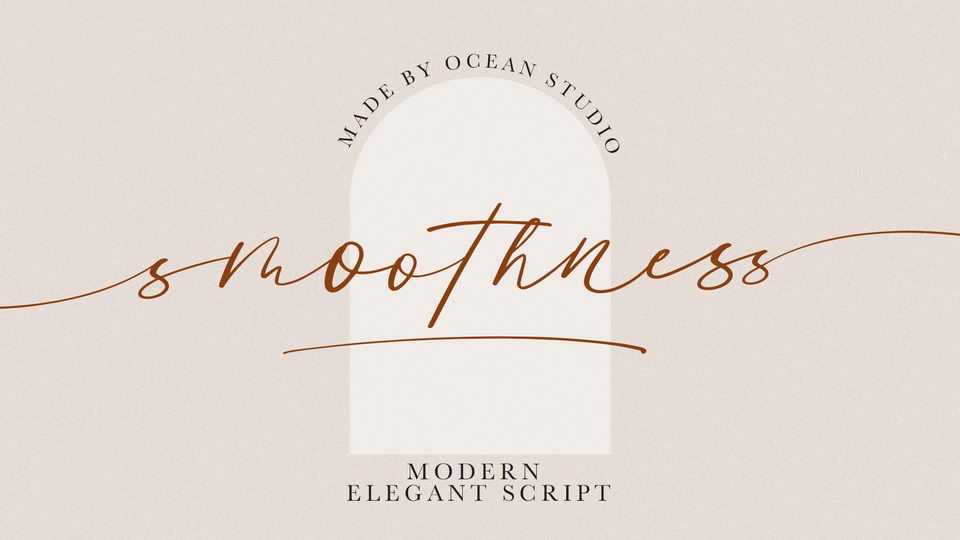
Download Smoothness font, a gorgeous organic handwritten typeface that looks stunning in just about every works. Smoothness is well-suited for advertising, branding, logotypes, packaging, titles, headlines and editorial design.
Designer: The Ocean Studio